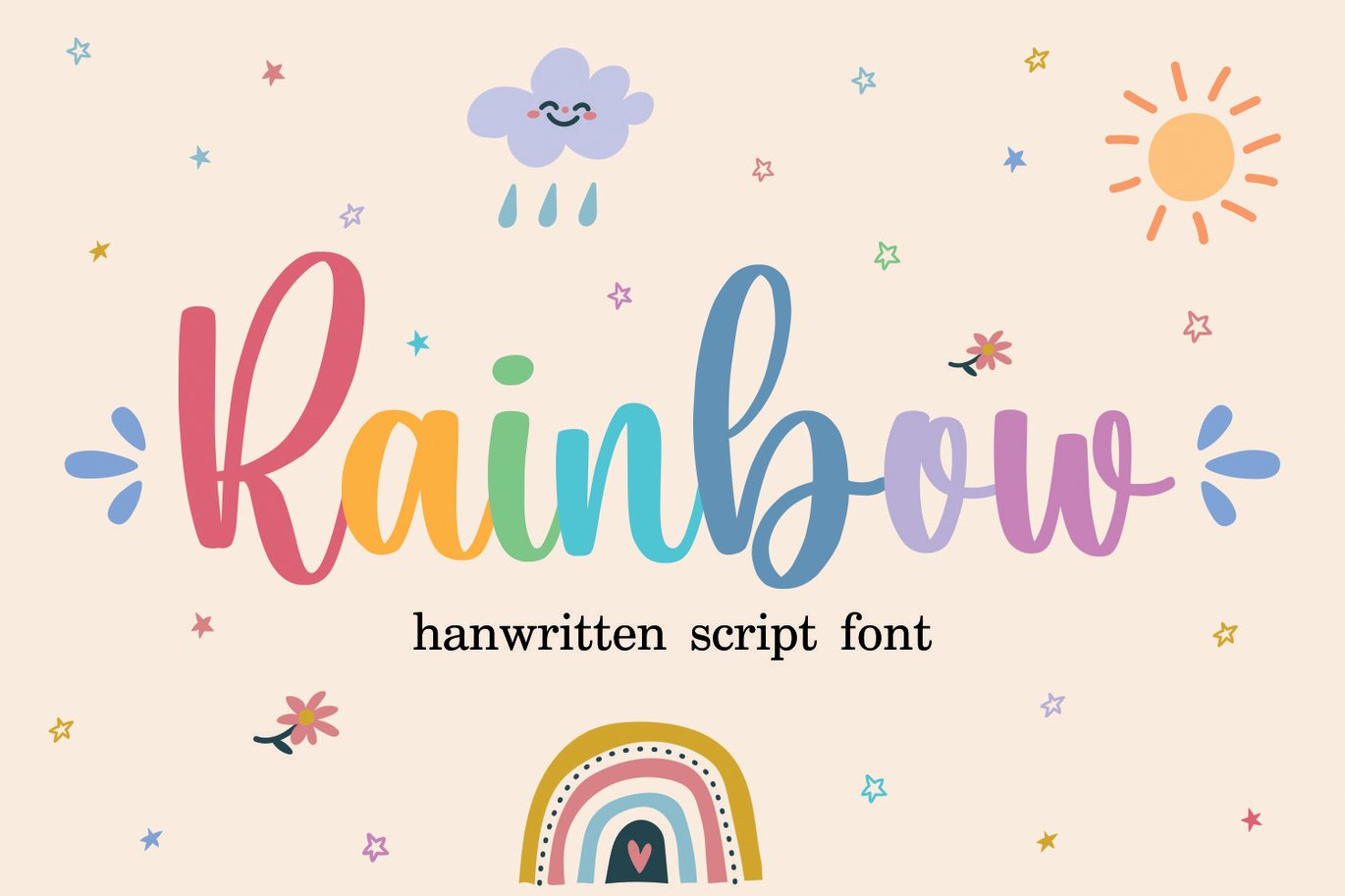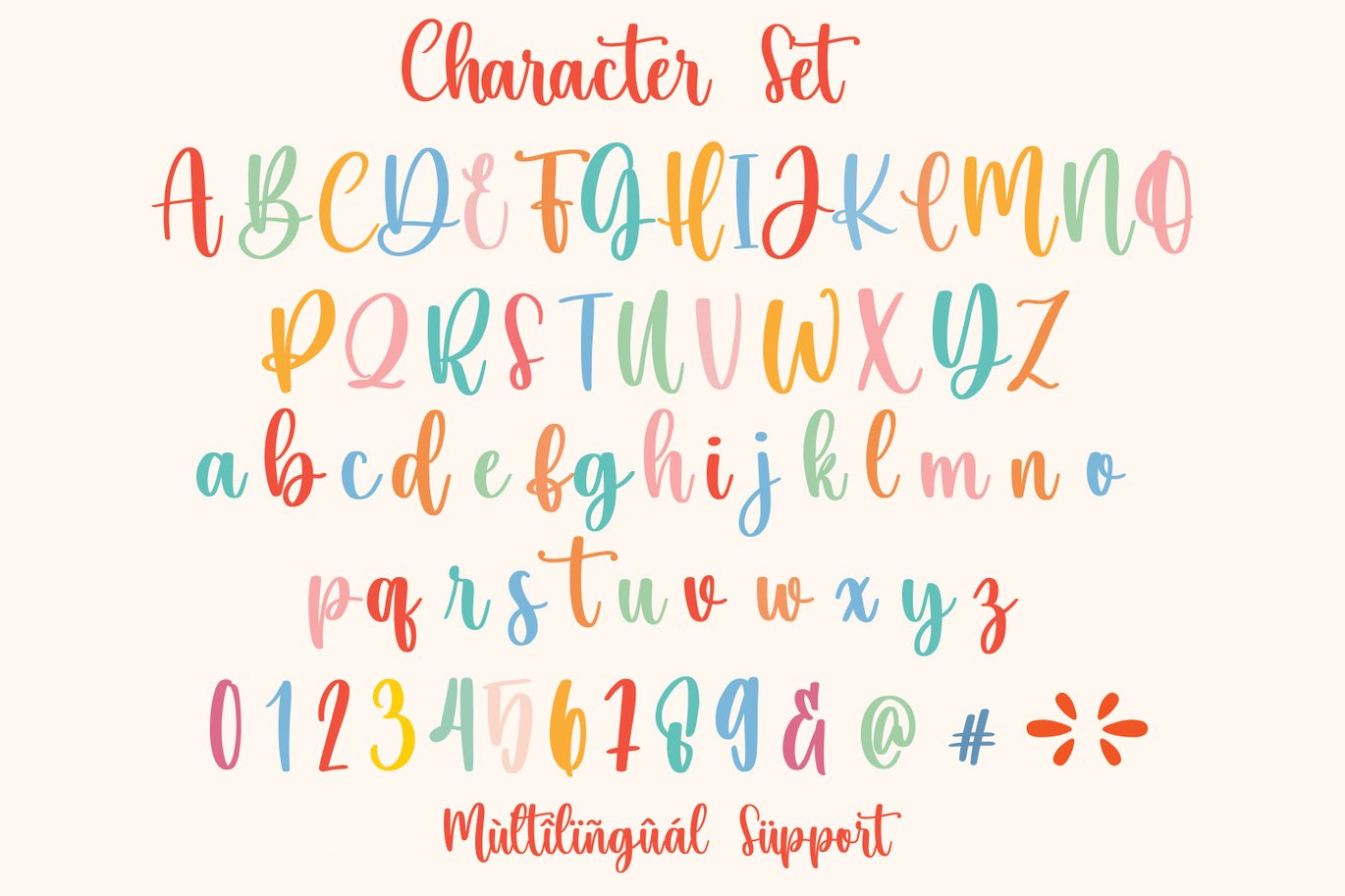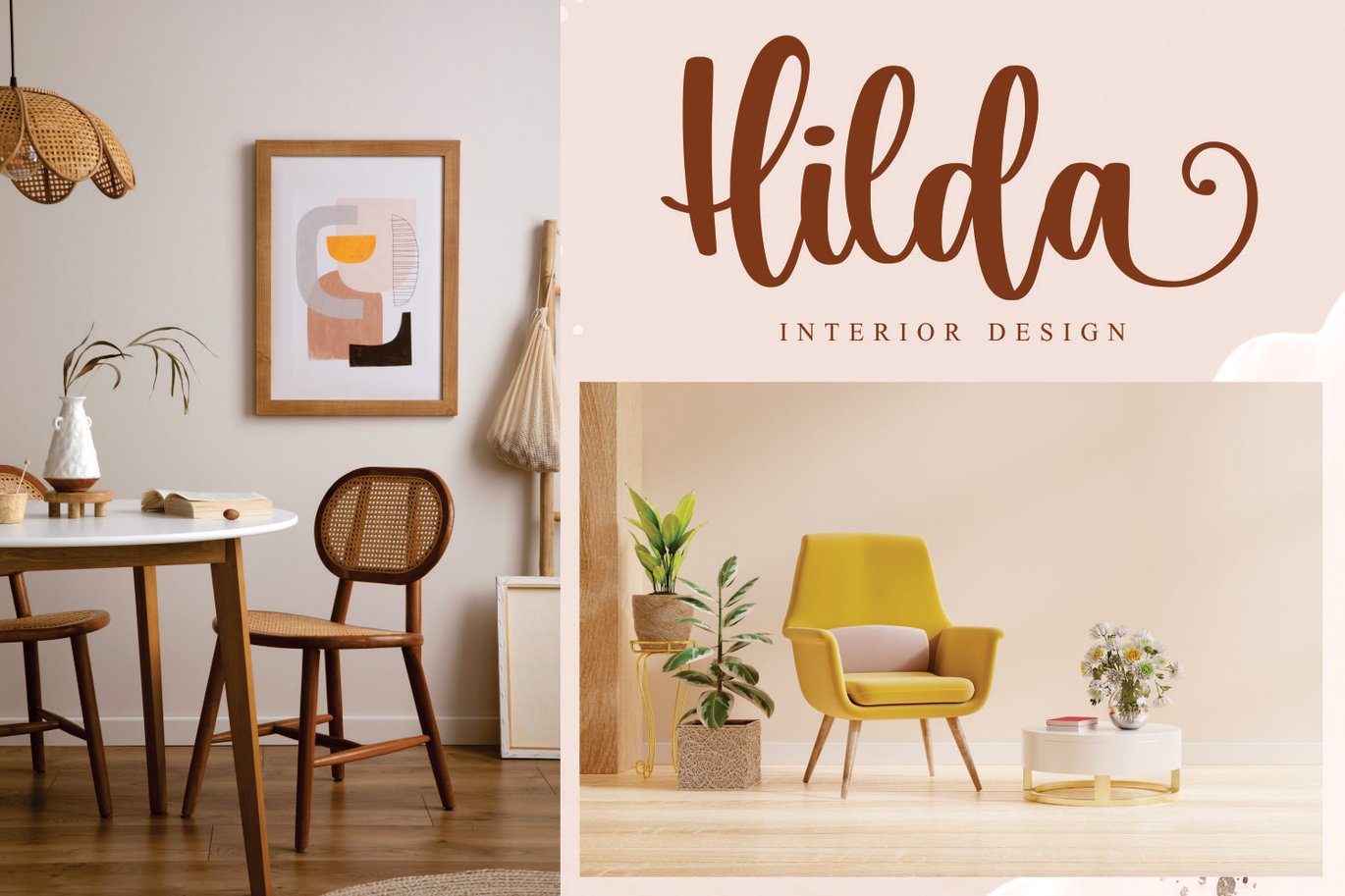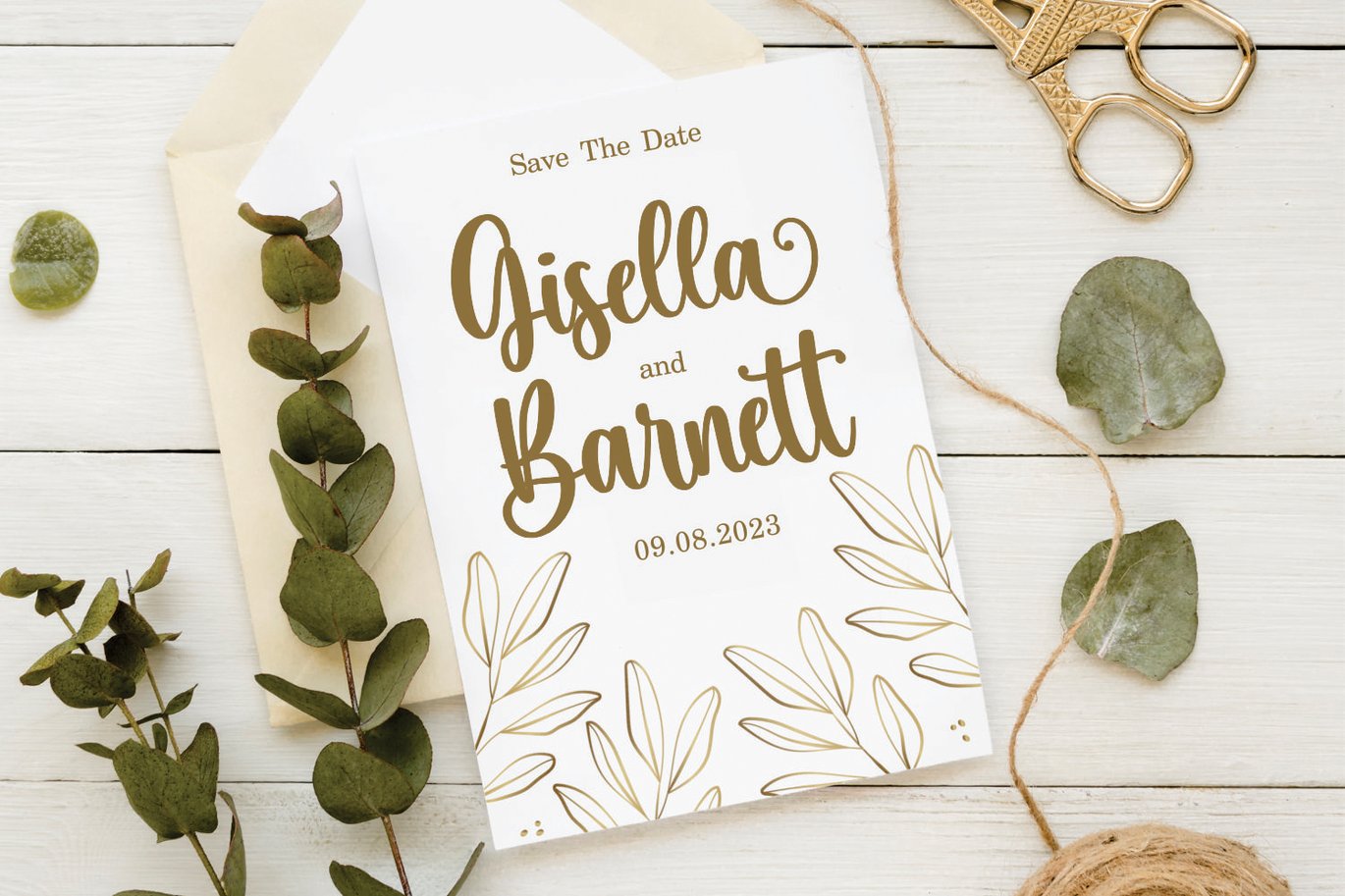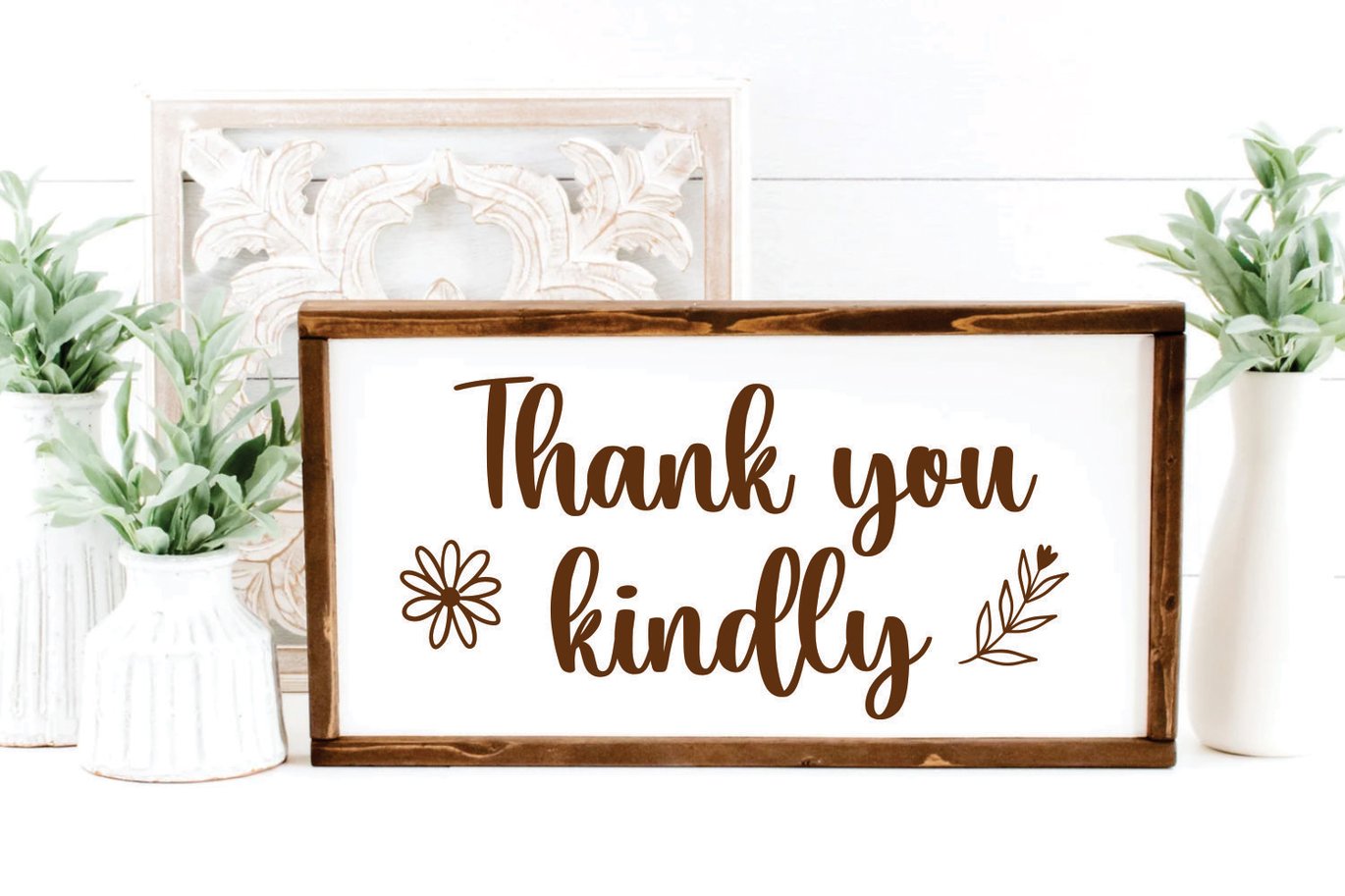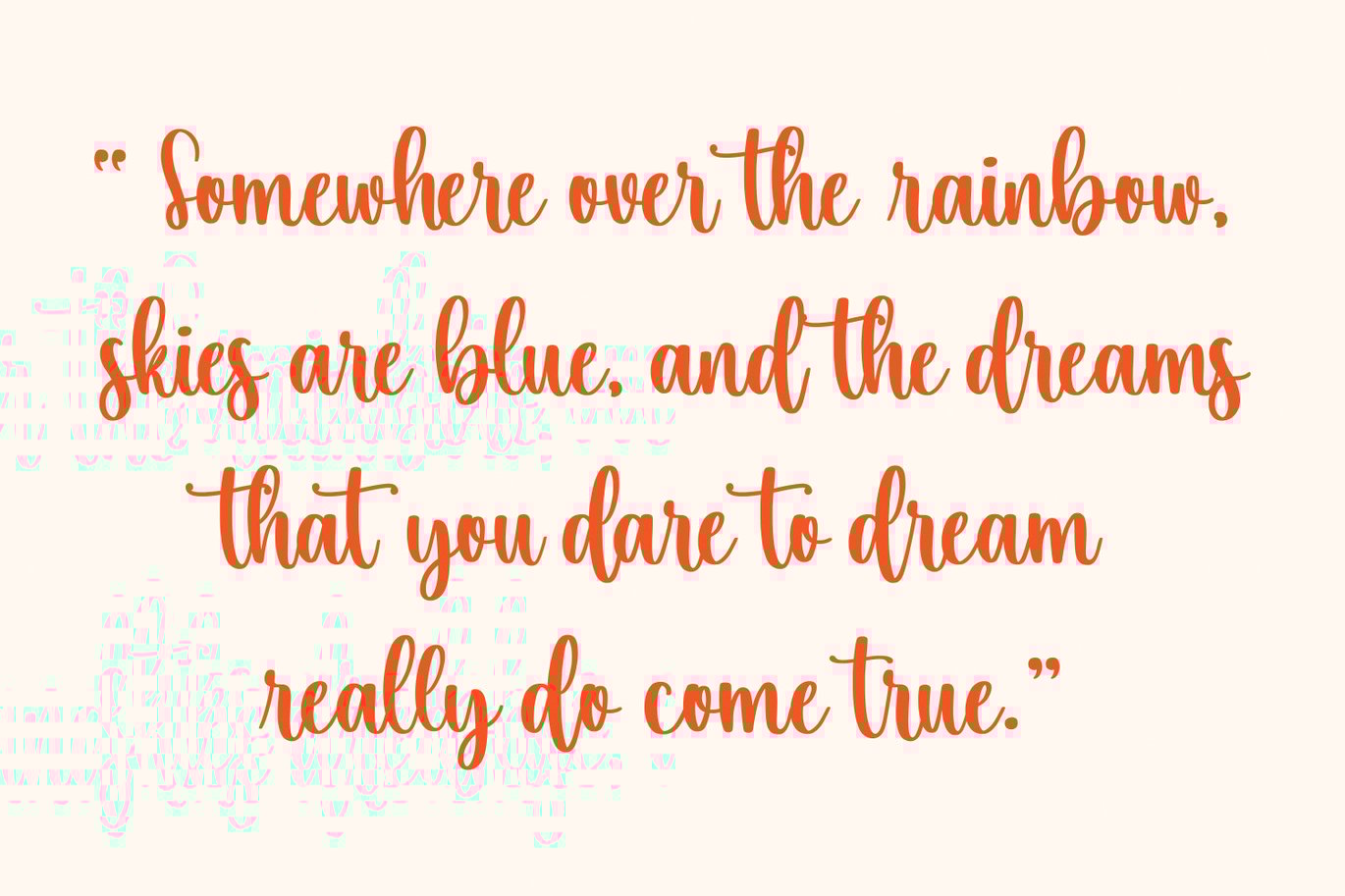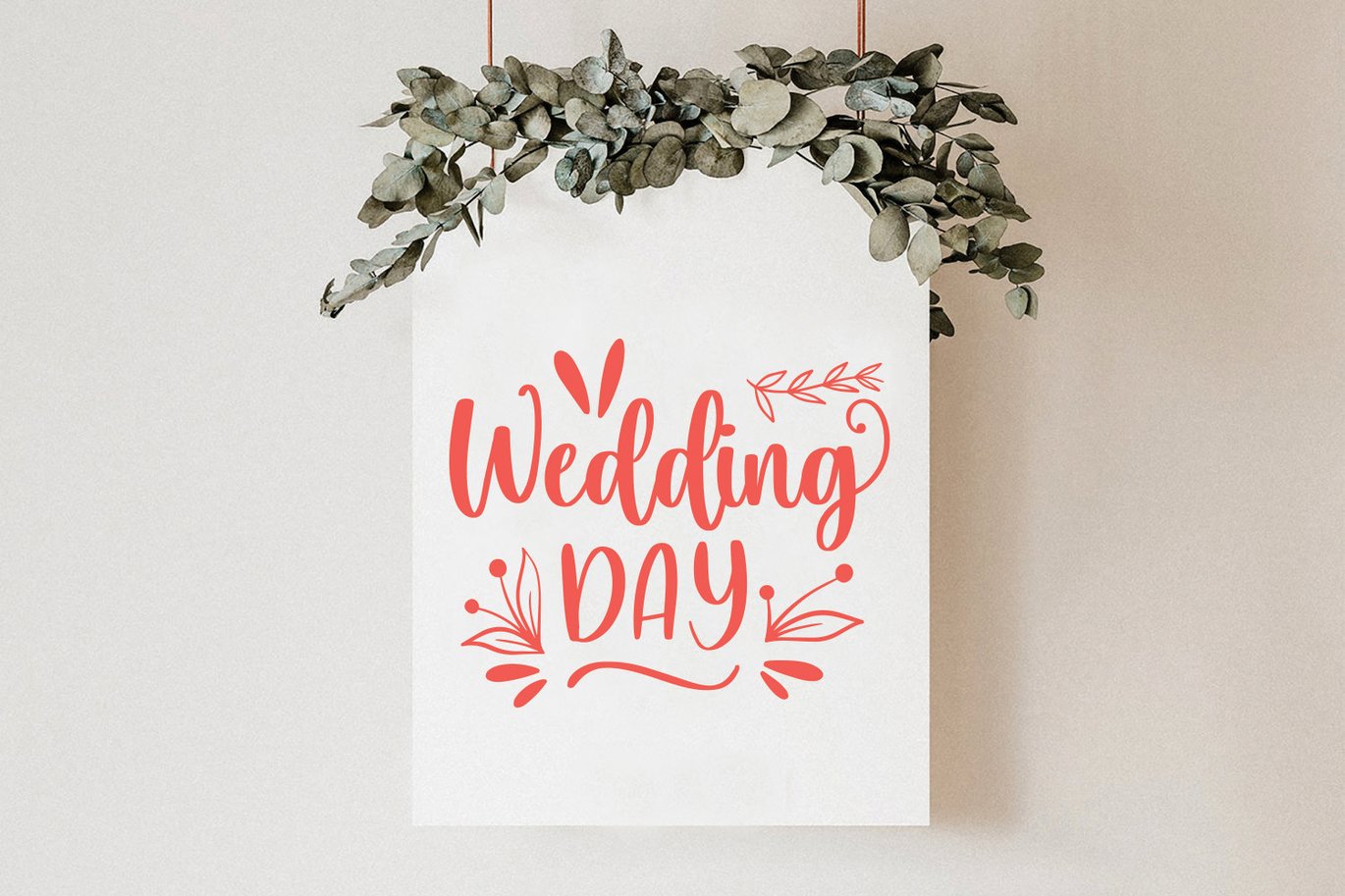
Rainbow – Wedding Font
Rainbow is a lovely and sweet handwritten script font that will add a joyful and romantic touch to your designs. Perfect for a variety of design ideas, this gentle font enhances the beauty of each project, making it ideal for wedding invitations, social media posts, and more.
Unlock the full potential of Rainbow with its PUA encoding, allowing easy access to all glyphs, swashes, and ligatures. This versatile font is the best choice for creating eye-catching logos, branding, and quotes. Each letter has a unique and beautiful touch, bringing your designs to life with elegance and charm.